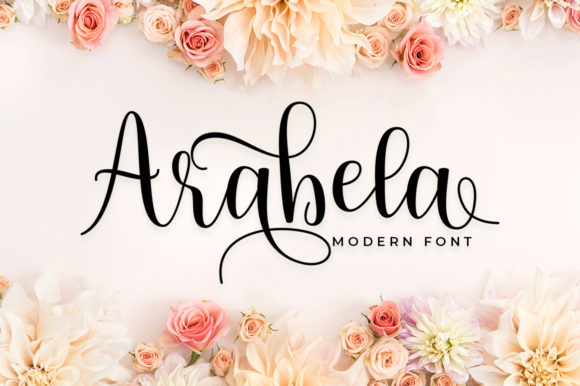
The Arabela Font: A Modern, Fun Handwritten Delight
I’ll never forget the time I was working on a project for a client who wanted a playful, yet sophisticated font to match their brand’s personality. I spent hours scouring the internet for the perfect one, but nothing seemed quite right. That was until I stumbled upon the Arabela font. This modern, fun handwritten font has been a game-changer for me, and I’m excited to share it with you!
A Personal Review: What I Love About Arabela
So, what makes Arabela so special? Here are a few things that I absolutely love:
- ✨ Versatility: Arabela looks spectacular in a variety of contexts, from web design to print, and even moving images.
- ✅ Ease of use: This font is incredibly easy to read and works well for both headings and body text.
- 💃 Playful vibe: Arabela has a fun, energetic feel that’s perfect for brands that want to convey a sense of creativity and playfulness.
While Arabela is an amazing font, there are a few small quirks to be aware of:
- 🤔 Limited use in very formal contexts: While Arabela is versatile, it may not be the best choice for very formal or traditional designs.
- ⚠️ Some letters may require adjustment: Depending on the context, some letters may require adjustment to ensure they fit together seamlessly.
While the true story behind Arabela’s creation may be unknown, it’s easy to imagine a designer who wanted to create a font that captured the essence of playfulness and creativity. Perhaps they were inspired by the beauty of handwritten letters, or the energy of modern street art. Whatever the inspiration, Arabela is a true gem in the world of typography.
| Font Name | Arabela Font |
| Author | Aqeela Studio |
| What is Arabela font best used for? | Arabela font is best used for designs that require a playful, yet sophisticated touch, such as branding, packaging, and web design. |
| Is Arabela a versatile font? | Yes, Arabela is an incredibly versatile font that can be used in a variety of contexts, from web design to print and moving images. |